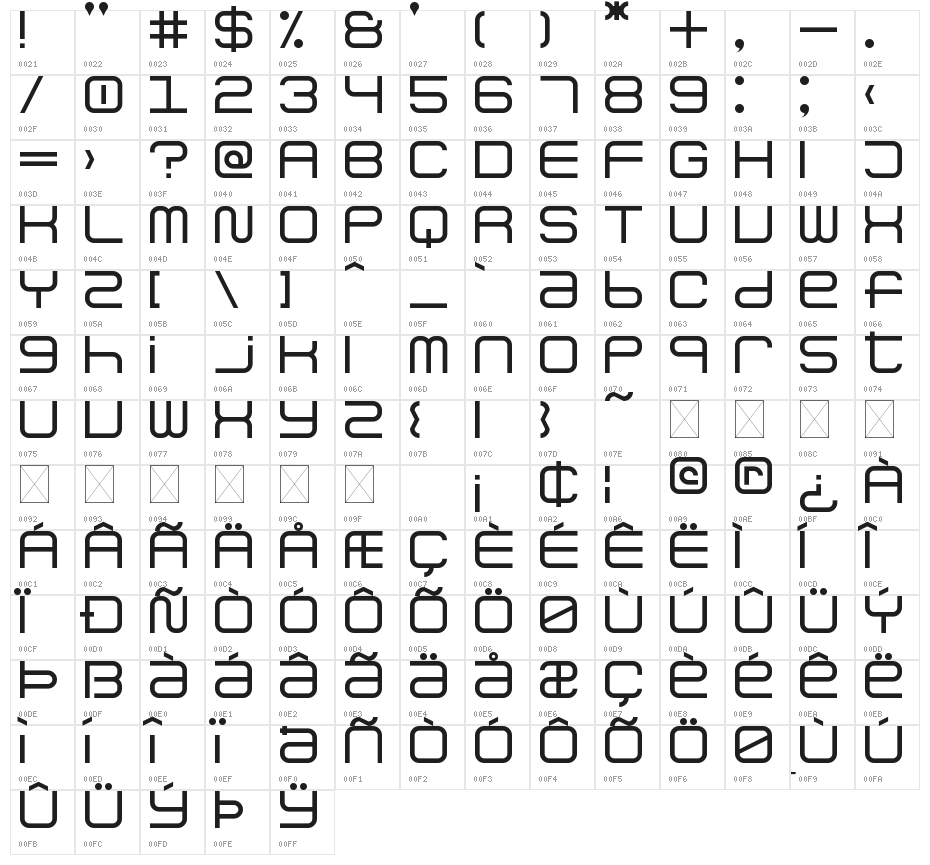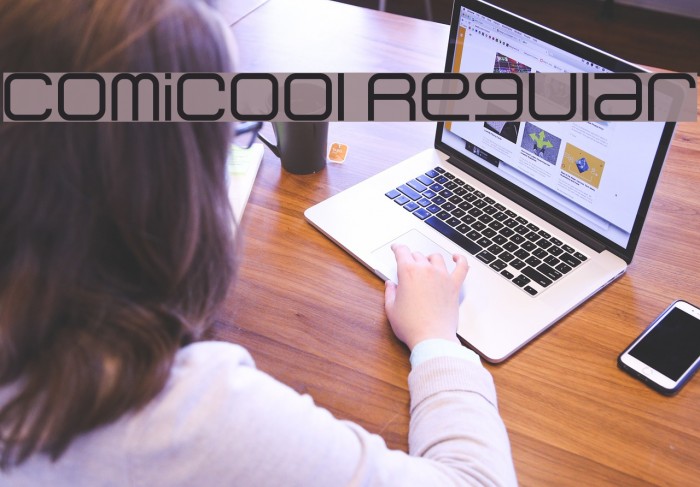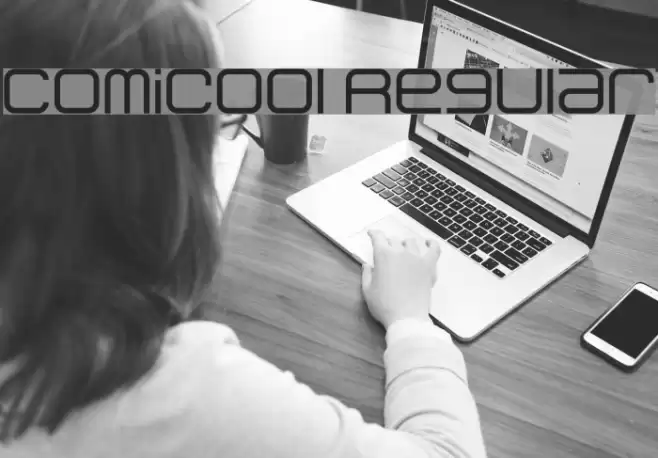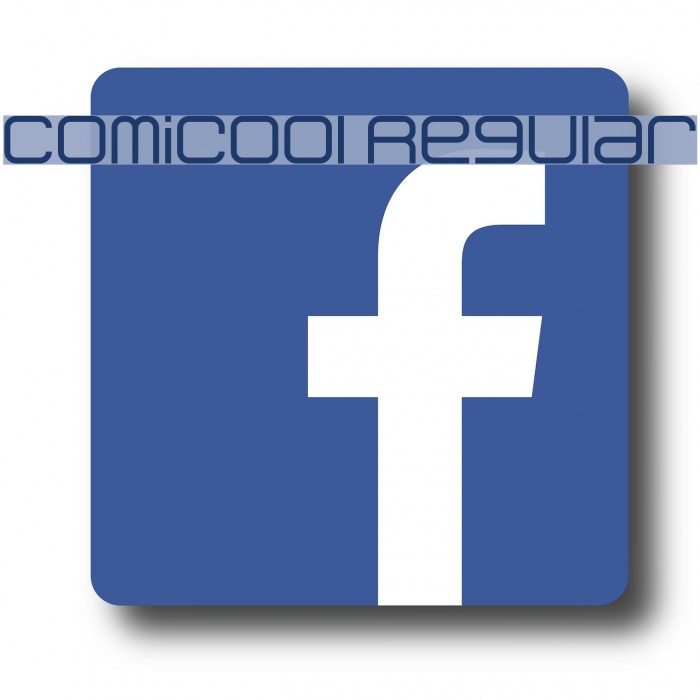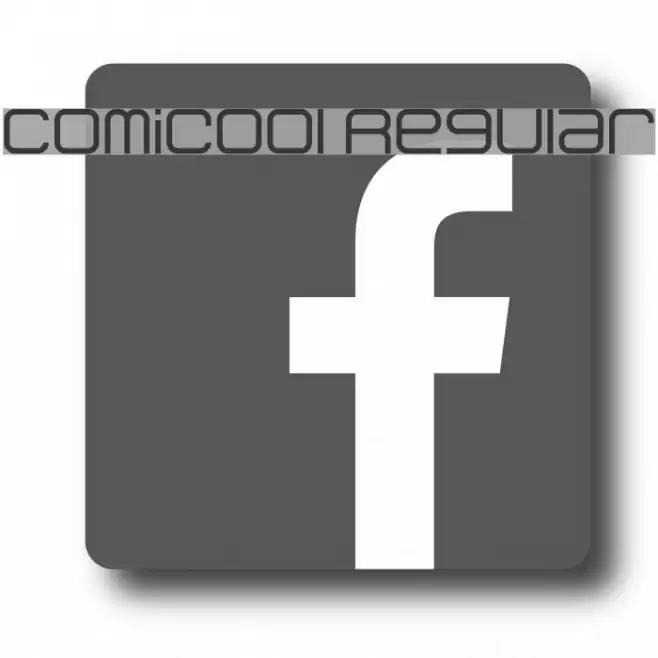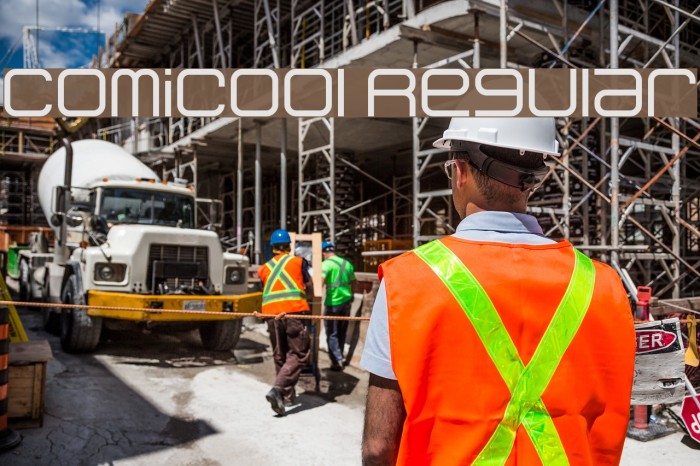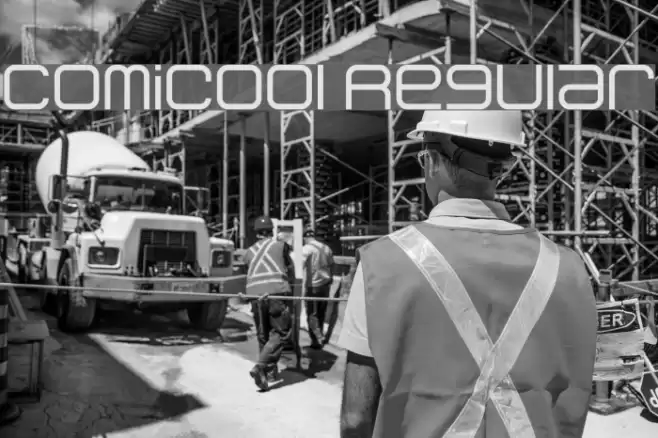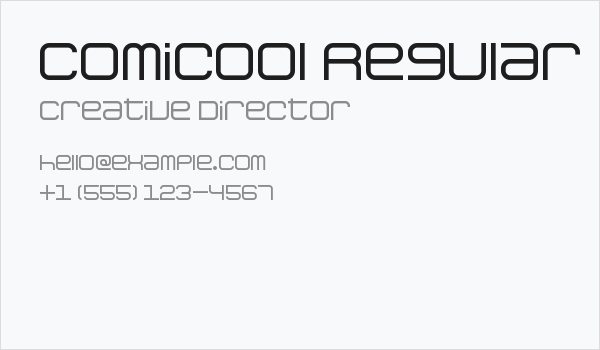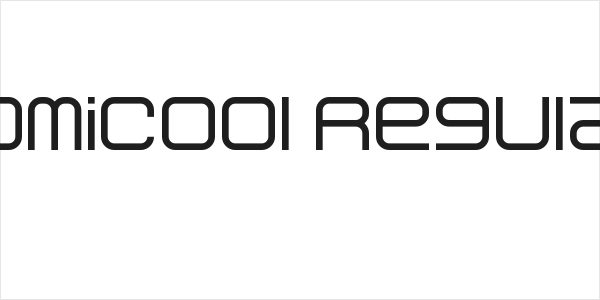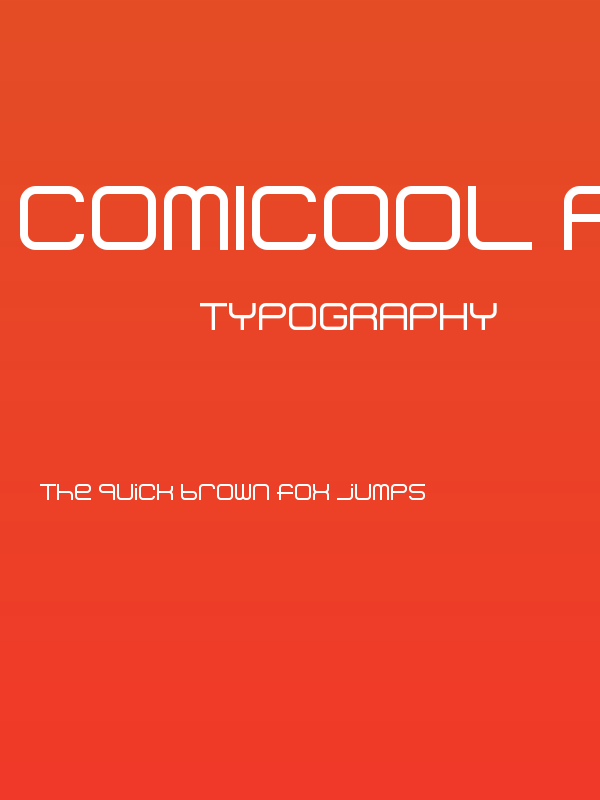
Comicool Regular Font
Comicool Regular Description
This font features a playful and modern design with a geometric structure. The characters are composed of bold, rounded lines that create a sense of movement and energy. The uppercase and lowercase letters maintain a consistent style, with a slight variation in height and width that adds to the font's dynamic appearance. The numerals and special characters are designed to match the overall aesthetic, ensuring a cohesive look across all text elements. The font's unique style makes it suitable for creative and informal applications, where a touch of fun and personality is desired.
| Proposed Projects | Ideal for comic books, children's books, playful branding, and creative posters. |